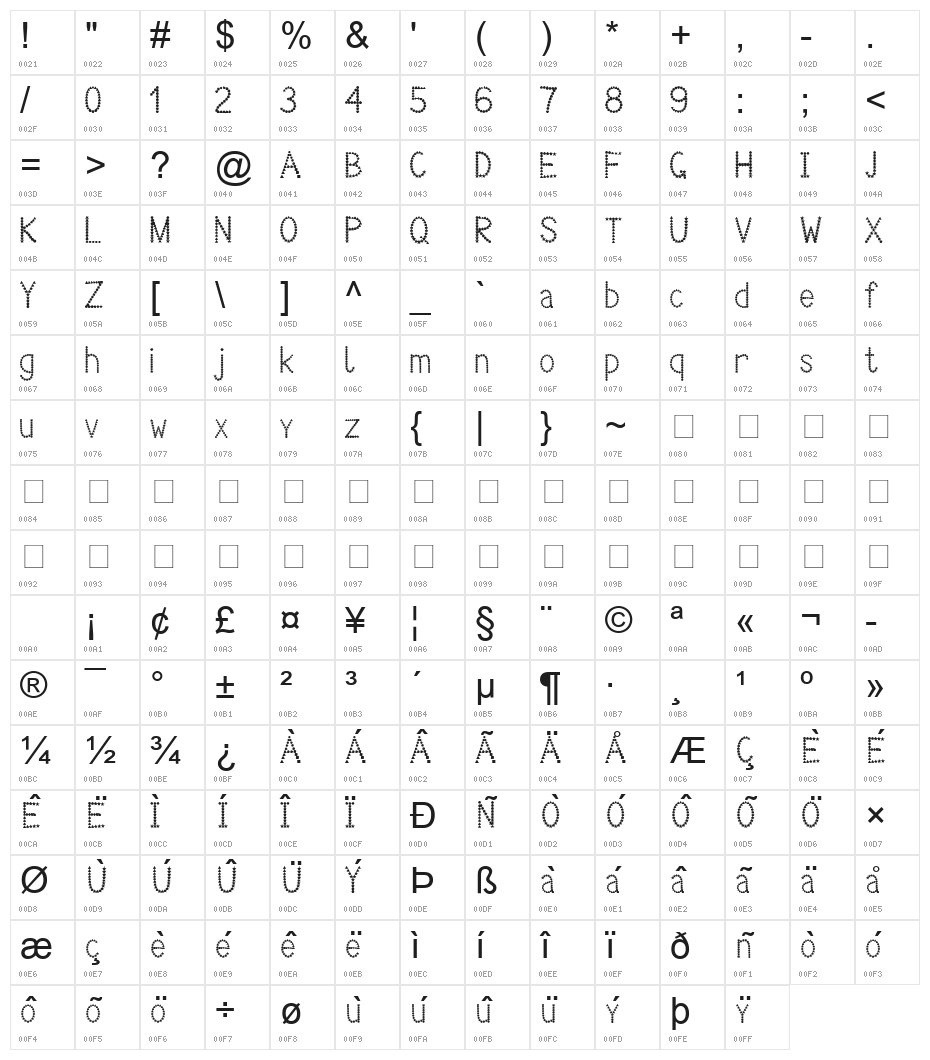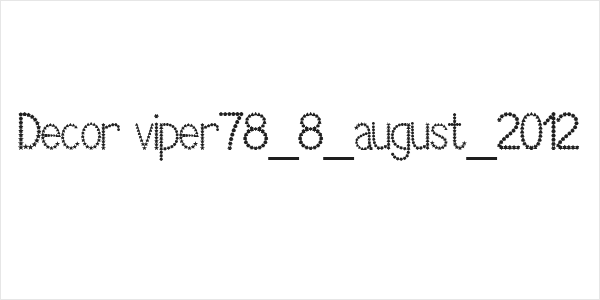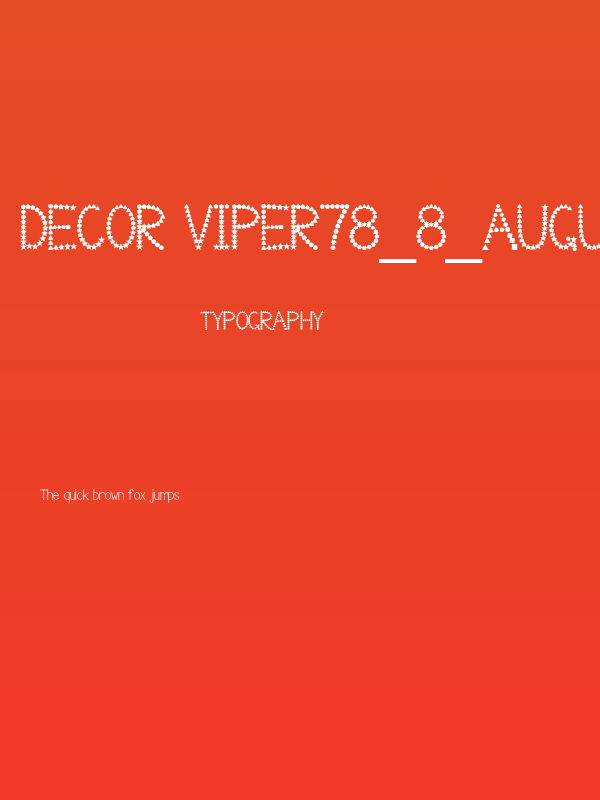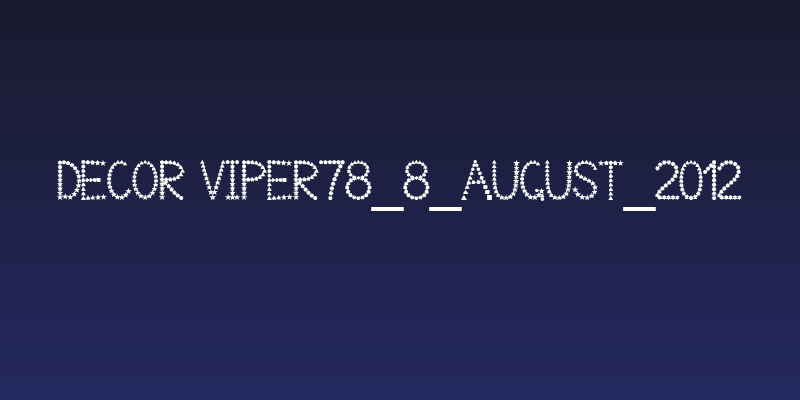
Decor viper78_8_august_2012 Font
Decor viper78_8_august_2012 Description
This font features a unique and playful design where each character is composed of small star and circle shapes, creating a decorative and eye-catching appearance. The characters are evenly spaced, maintaining a consistent pattern throughout the alphabet, numbers, and special symbols. The whimsical style makes it stand out, offering a fun and creative option for various design projects. The font's decorative nature is ideal for projects that require a touch of flair and individuality, making it suitable for creative and artistic applications.
| Proposed Projects | Ideal for party invitations, children's book covers, playful branding, and creative posters. |